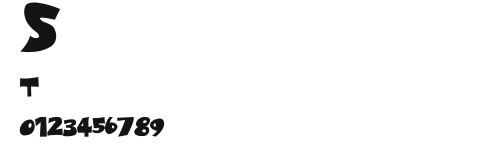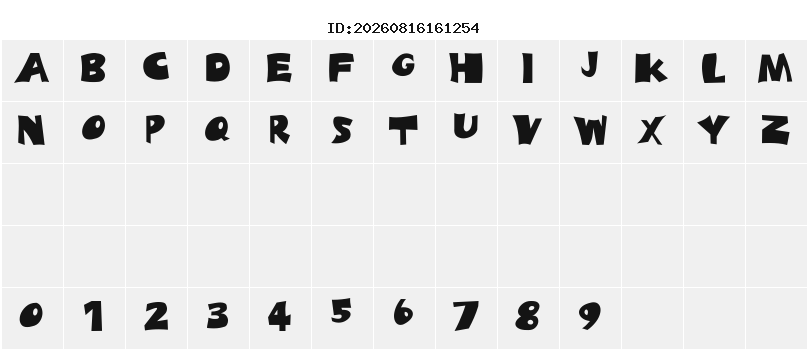
Spotts Preview
• Font Name: Spotts
• Full Font Name: Spotts
About Spotts.ttf
Spotts.ttf is a modern, elegant sans-serif font designed for ultimate readability and visual harmony. Perfect for branding, headlines, web design, and print materials.